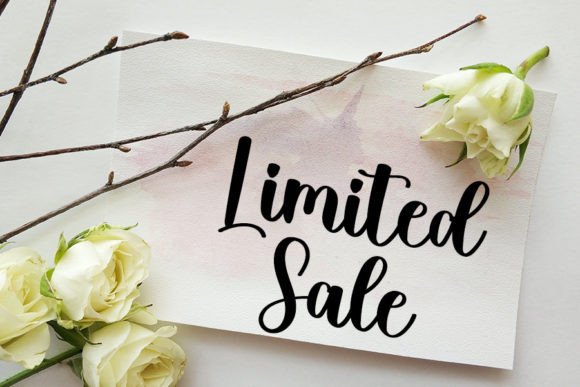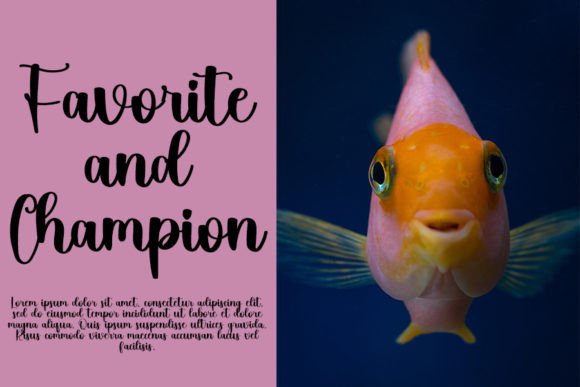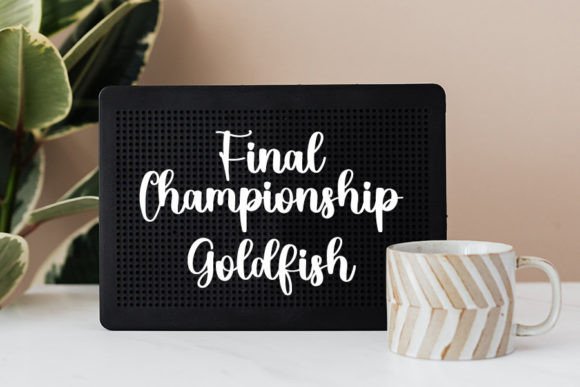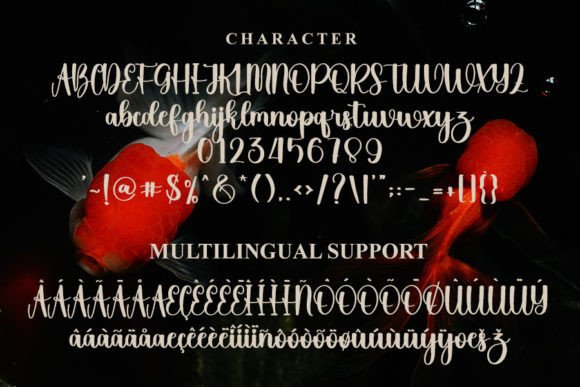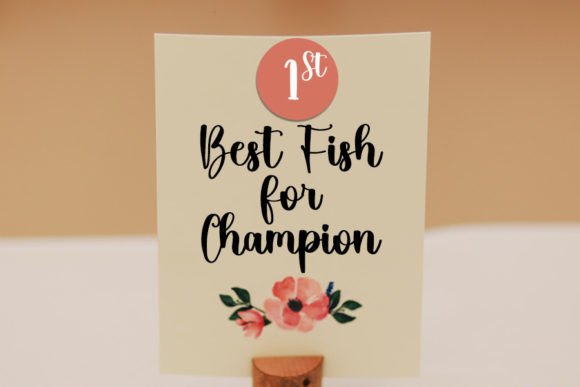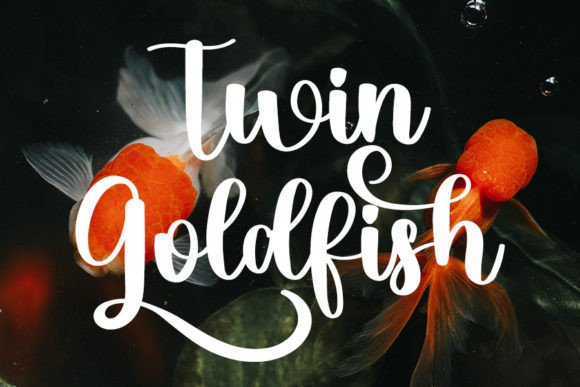
Introducing Goldfish Font: Elevate Your Designs with Elegance and Class
In the world of typography, fonts play a crucial role in conveying the tone and aesthetic of a design. For designers and crafters seeking to add a touch of sophistication and elegance to their projects, the Goldfish Font is an excellent choice. This trendy handwritten font boasts a contemporary atmosphere and impeccable form, drawing inspiration from timeless classic calligraphy.
The Essence of Goldfish Font
Goldfish Font is a beautiful, handwritten typeface that exudes refinement and poise. Its unique charm lies in its ability to blend traditional calligraphic elements with modern sensibilities, making it an ideal choice for a wide range of design applications. Whether you’re working on a branding project, packaging design, or digital content, Goldfish Font is sure to make a lasting impression.
Key Features of Goldfish Font
- Trendy and Contemporary: Goldfish Font features a modern, fresh look that’s perfect for designers looking to stay ahead of the curve.
- Handwritten with Elegance: The font’s handwritten style adds a personal touch to any design, while its elegant lines and curves convey sophistication.
- Inspired by Classic Calligraphy: Goldfish Font draws inspiration from traditional calligraphy, ensuring a timeless quality that won’t go out of style.
- Versatile: This font can be used for a variety of design projects, from luxury branding to digital content, and everything in between.
Use Cases for Goldfish Font
Goldfish Font’s versatility makes it an excellent choice for various design applications. Here are some use cases to consider:
- Branding and Logo Design: Create a lasting impression with a custom logo or brand identity that showcases the elegance of Goldfish Font.
- Packaging Design: Add a touch of sophistication to product packaging, making it stand out on store shelves.
- Digital Content: Elevate blog posts, social media graphics, and website content with a font that exudes refinement and class.
- Stationery and Invitations: Create beautiful, high-end stationery and invitations that make a lasting impression.
Tips for Using Goldfish Font Effectively
To get the most out of Goldfish Font, consider the following tips:
- Pair with Neutral Backgrounds: Allow Goldfish Font to take center stage by pairing it with neutral backgrounds that won’t compete for attention.
- Experiment with Colors: Try pairing Goldfish Font with a range of colors to find the perfect combination that enhances its elegance.
- Use for Headings and Titles: Goldfish Font is perfect for headings and titles, adding a touch of sophistication to any design.
Goldfish Font is an exceptional choice for designers and crafters seeking to add elegance and class to their projects. With its trendy, handwritten style and timeless inspiration from classic calligraphy, this font is sure to elevate any design. Whether you’re working on branding, packaging, digital content, or stationery, Goldfish Font is the perfect tool to help you create stunning, high-end designs that leave a lasting impression.